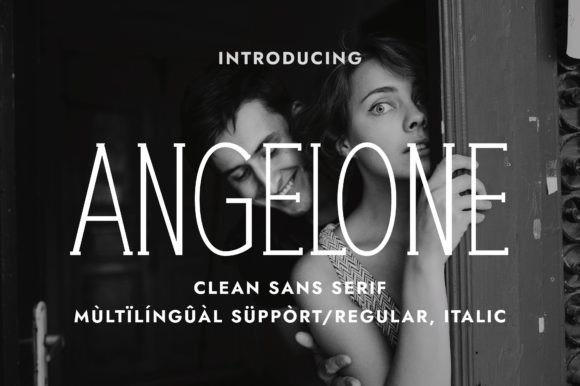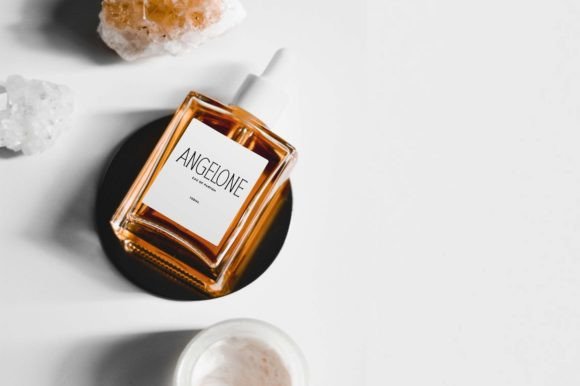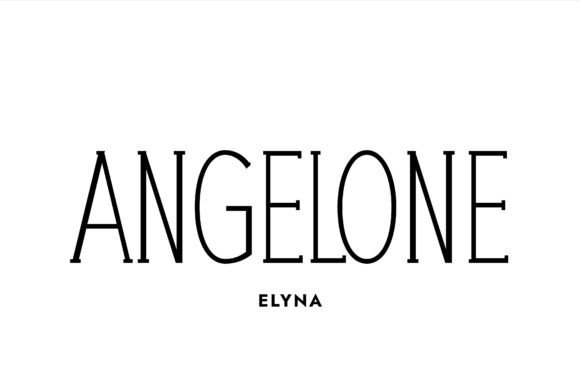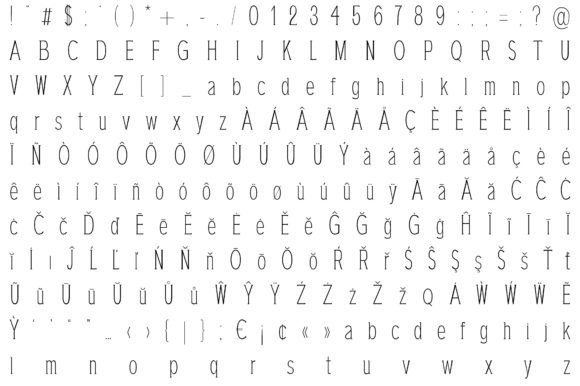
Angelone Font
Angelone: A Thin and Elegant Slab Serif Typeface
Angelone is a thin, elegant, and delicate slab serif typeface designed to be used as a display font. It adapts wonderfully to various contexts, making it perfect for designing labels for perfumes, cosmetics, magazine covers, posters, manifests, flyers, social posts, and fashion. Use it confidently in your creations, and you’ll notice how much elegance it adds to any context.
Key Features of Angelone
• Thin Design: Offers a delicate and refined look suitable for elegant applications.
• Slab Serif Structure: Features subtle serifs that add character and style.
• Versatile Application: Ideal for both print and digital media projects.
• Elegant Appearance: Perfect for high-end and fashion-related designs.
Ideal Uses for Angelone
Angelone’s unique characteristics make it particularly well-suited for:
When incorporating Angelone into your designs, consider these tips:
• Use for headlines or short blocks of text to showcase its delicate style.
• Experiment with different sizes to highlight the font’s elegant features.
• Consider pairing with simple sans-serif fonts for body text to create contrast.
• Utilize its thin appearance to create sophisticated and refined designs.
Angelone is an excellent choice for designers looking to add a thin and elegant slab serif font to their typographic toolkit. Its ability to bring refinement and sophistication to various design projects makes it stand out in the world of typography. Whether you’re working on luxury branding, creating layouts for fashion magazines, or developing content that requires a touch of elegance, Angelone offers the perfect blend of style and delicacy.
Furthermore, Angelone’s unique design allows it to shine in various contexts. From high-end product labels to sophisticated digital content, this font can elevate your projects with its distinctive style. Its thin yet readable appearance works particularly well in designs that require a thoughtful and engaging mood.
In conclusion, Angelone is a font that truly captures the essence of elegance and refinement in typography. Its ability to work well in both minimalist projects and more elaborate layouts showcases its versatility. For those looking to add a touch of sophisticated charm to their work, Angelone can enhance themed creations with its distinctive style. It’s the perfect choice for designers seeking to make a subtle yet impactful statement across a wide range of elegant and fashion-forward creative projects.